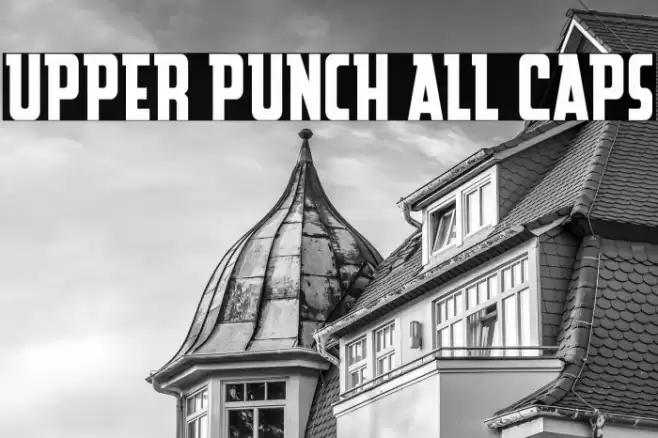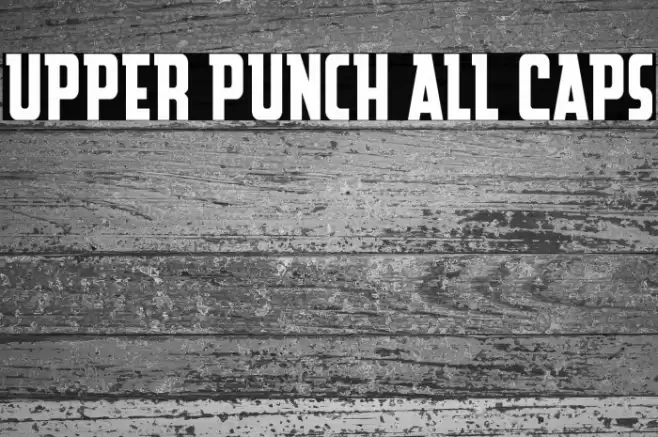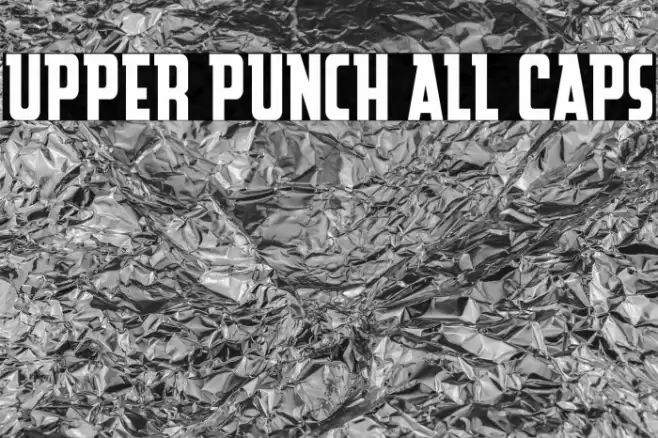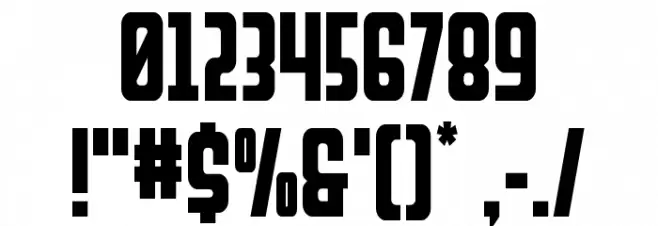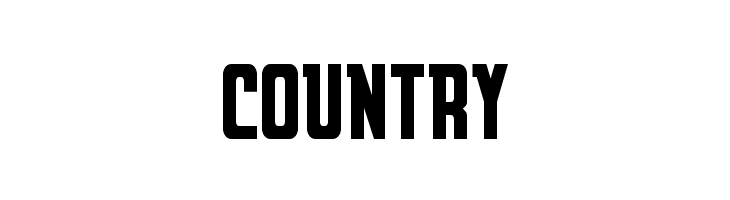
Upper Punch All Caps Font
Upper Punch All Caps Description
This font features a bold, impactful design with a strong presence. The characters are all uppercase, with a uniform height and width that creates a cohesive look. The strokes are thick and consistent, providing a sense of strength and stability. The font is highly legible, making it suitable for attention-grabbing headlines or titles. Its geometric structure and sharp edges give it a modern and assertive appearance, ideal for projects that require a bold statement.
A bold, uppercase font with thick strokes and a modern, assertive style from Regular fonts.
- Proposed Projects: Ideal for posters, headlines, branding, and any design that requires a strong visual impact.